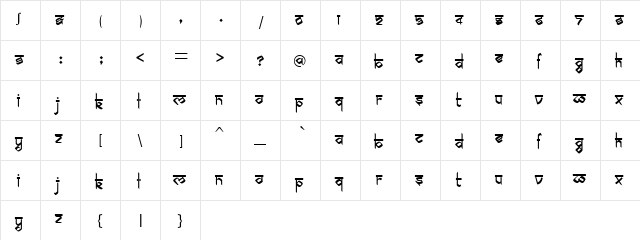
biling mi marathi Regular
| Foundry | rajendra bitling |
Design Context for biling mi marathi Typeface
biling mi marathi takes a measured approach to typography — its balanced proportions and neutral character make it a reliable workhorse for both digital and print work.